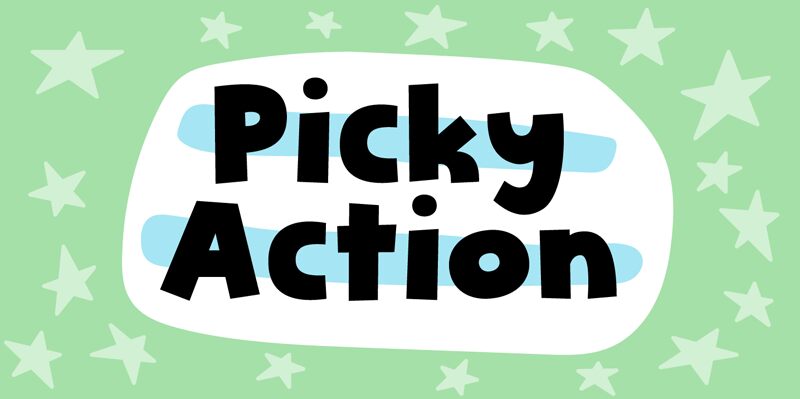
Picky Action, designed by Pizzadude, is a playful and vibrant display font that adds a touch of fun to any project.
With its ultra-bold weight and semi-expanded width, this cartoon-inspired typeface is perfect for children's books, comic strips, animations, and video game titles. Whether you're designing a whimsical logo or creating eye-catching posters, Picky Action will bring your creative ideas to life with its energetic and dynamic appeal.
Stand out from the crowd and infuse your projects with character using this font!